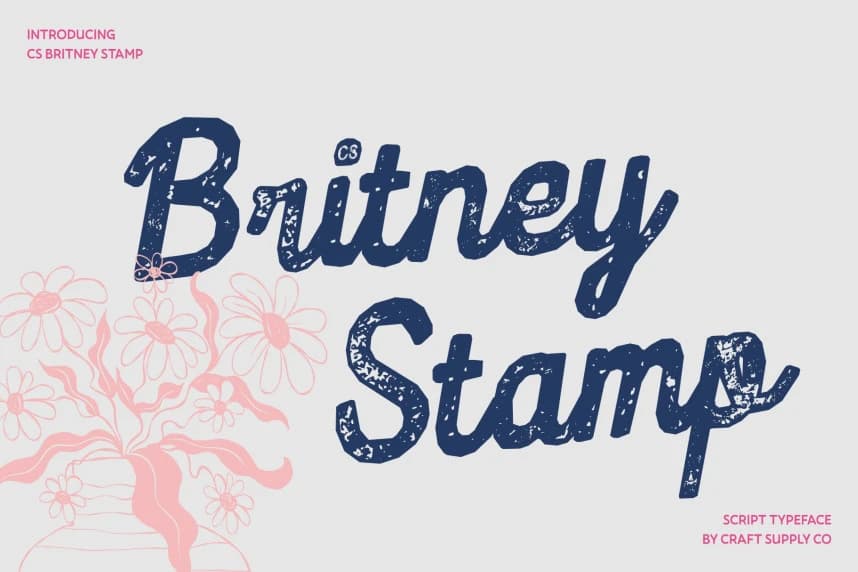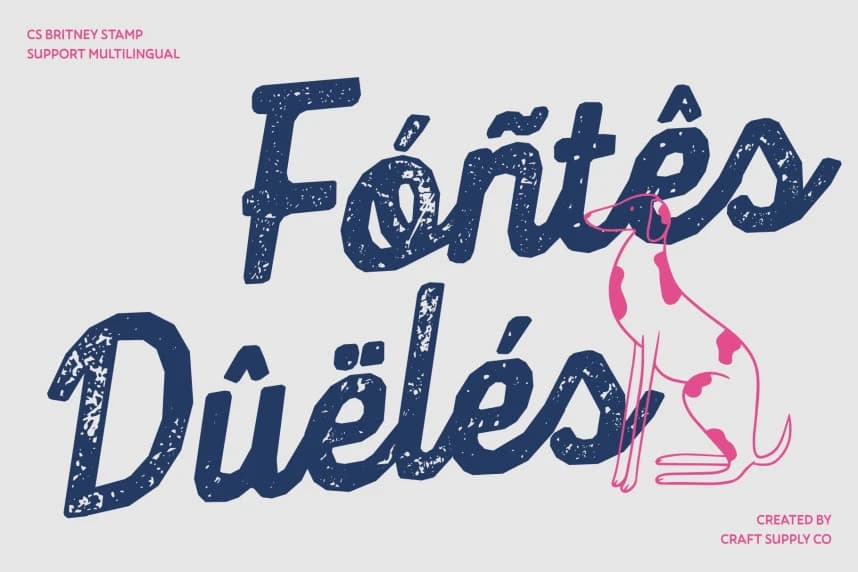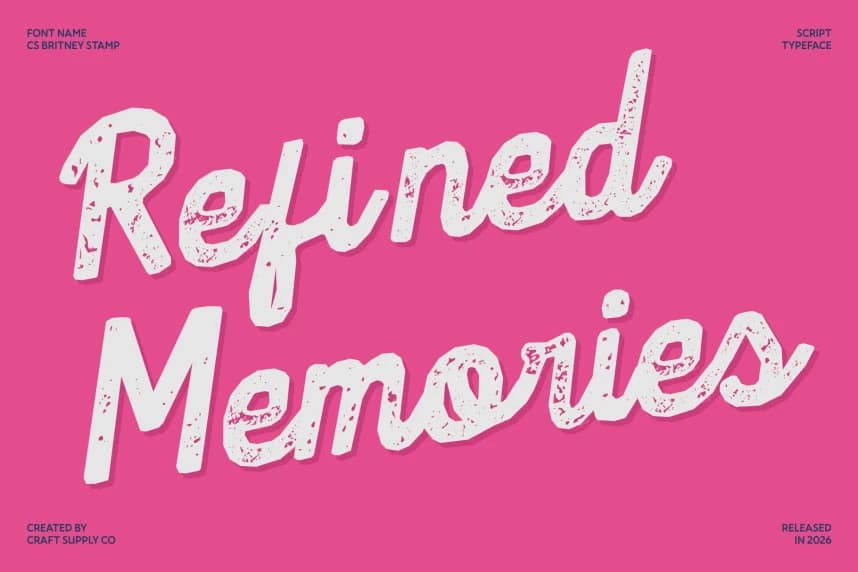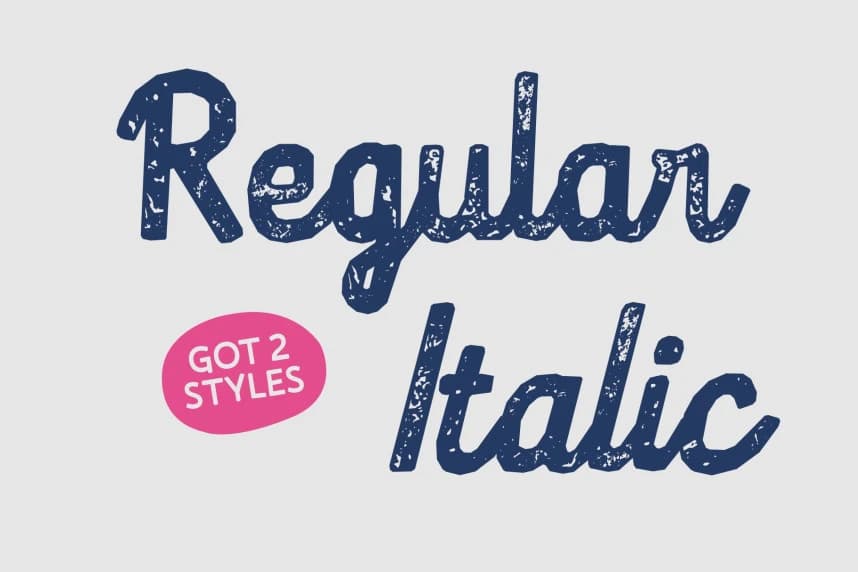
CS Britney Stamp font
CS Britney Stamp Font – Effortless Elegance with Textured Grace Graceful Script with Feminine Charm. This is a modern script font designed to capture the softness and elegance of handwritten lettering. Its flowing strokes and slim